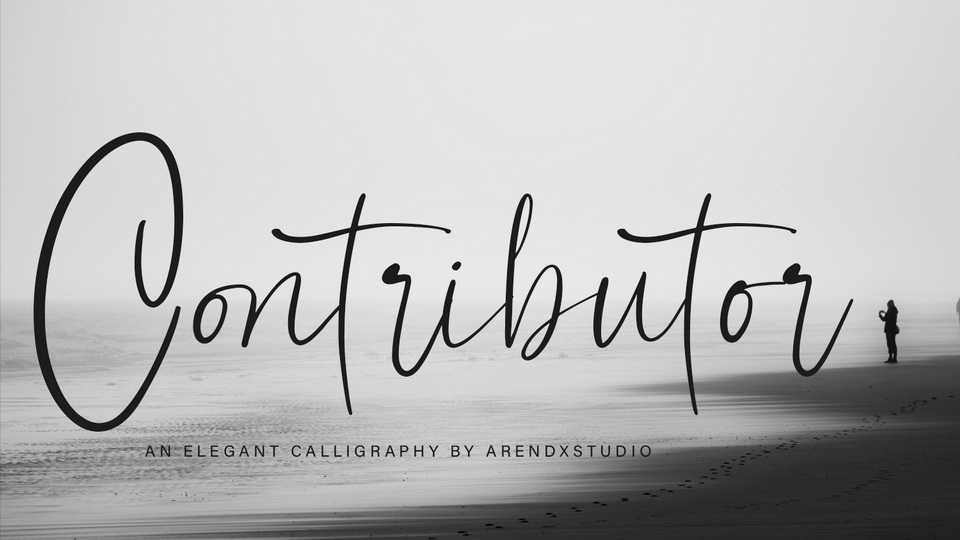
Contributor Font › Fontesk – Download Grátis
Download Contributor font, a calligraphy script that is luxurious in a casual and distinctive style that is perfect for your branding design. Contributor font will also be very beautiful in your wedding invitations and business cards and especially for your brand name logotype.
Designer: Arendx Studio